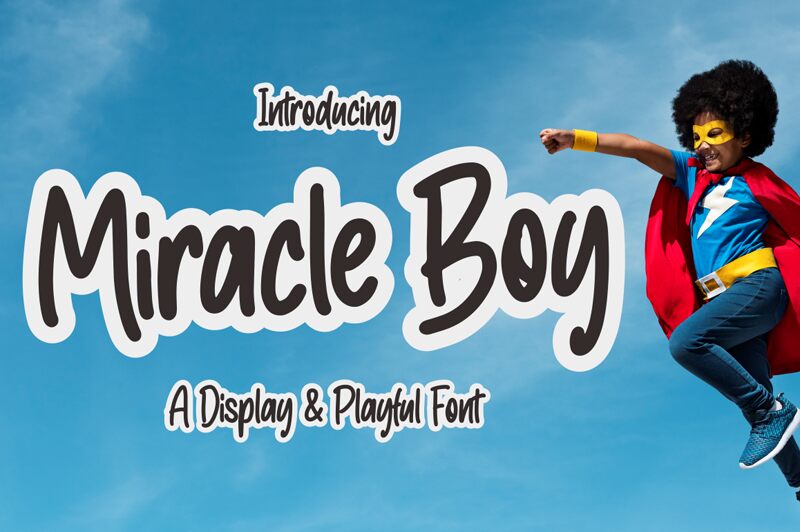
Miracle Boy
Miracle Boy is a captivating handwritten font crafted by NJ Studio. Its condensed width and organic, flowing strokes lend an air of effortless charm and whimsy. The font's playful, almost childlike aesthetic evokes a sense of youthful energy and genuine authenticity, making it a delight to the eye.
Miracle Boy's versatility shines through, making it a suitable choice for a wide range of design projects. Its expressive character and unique style can elevate branding, packaging, social media content, and even editorial layouts, adding a touch of personalized flair to any creative endeavor.